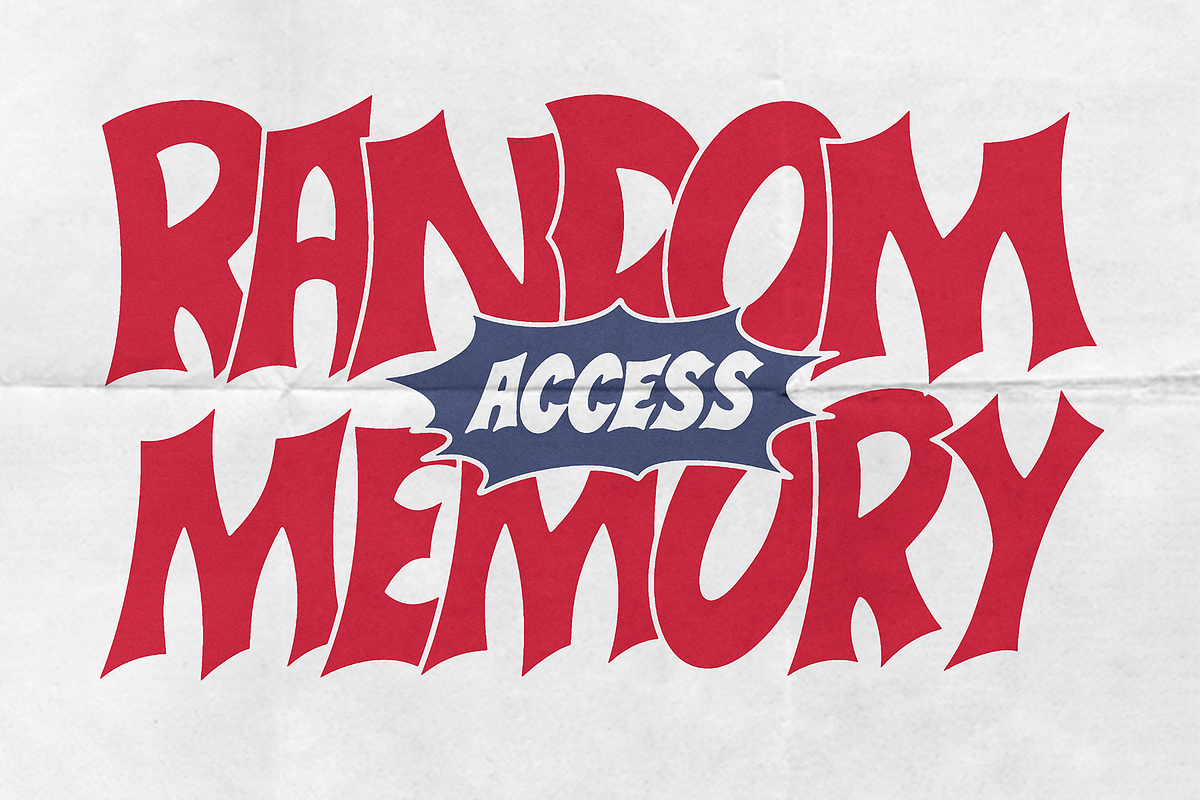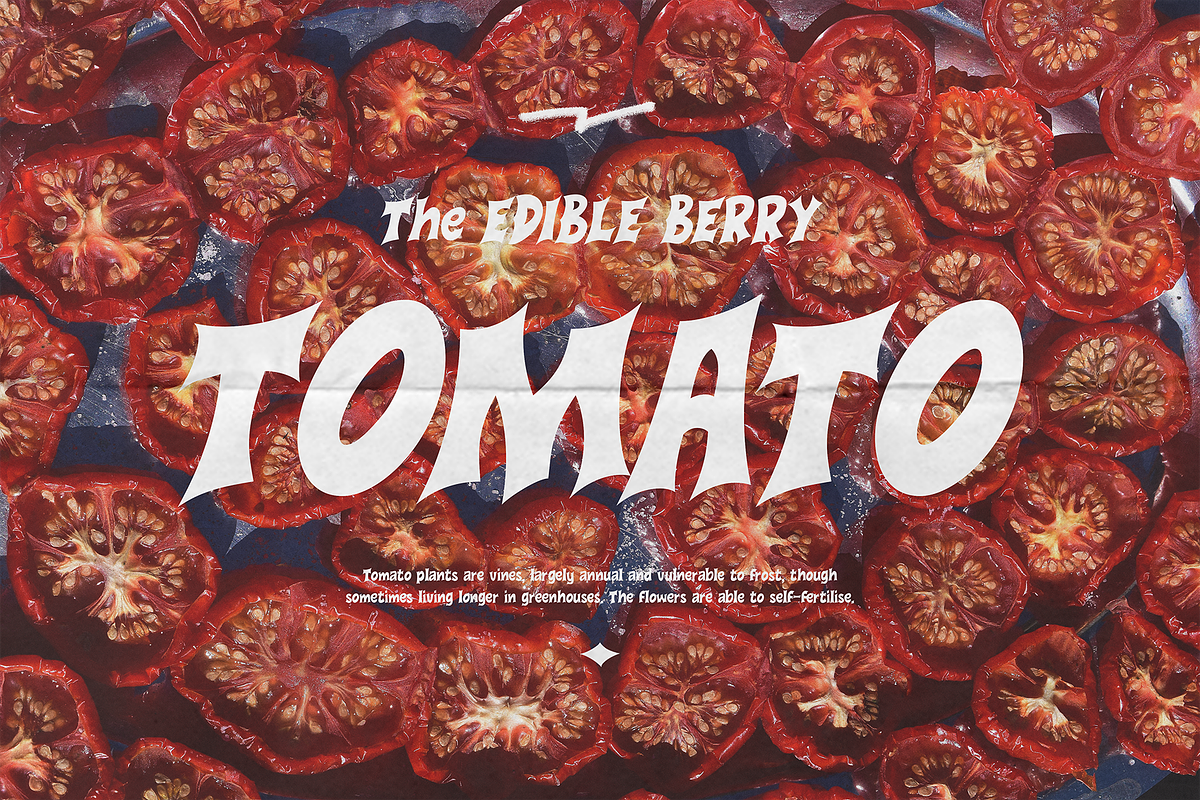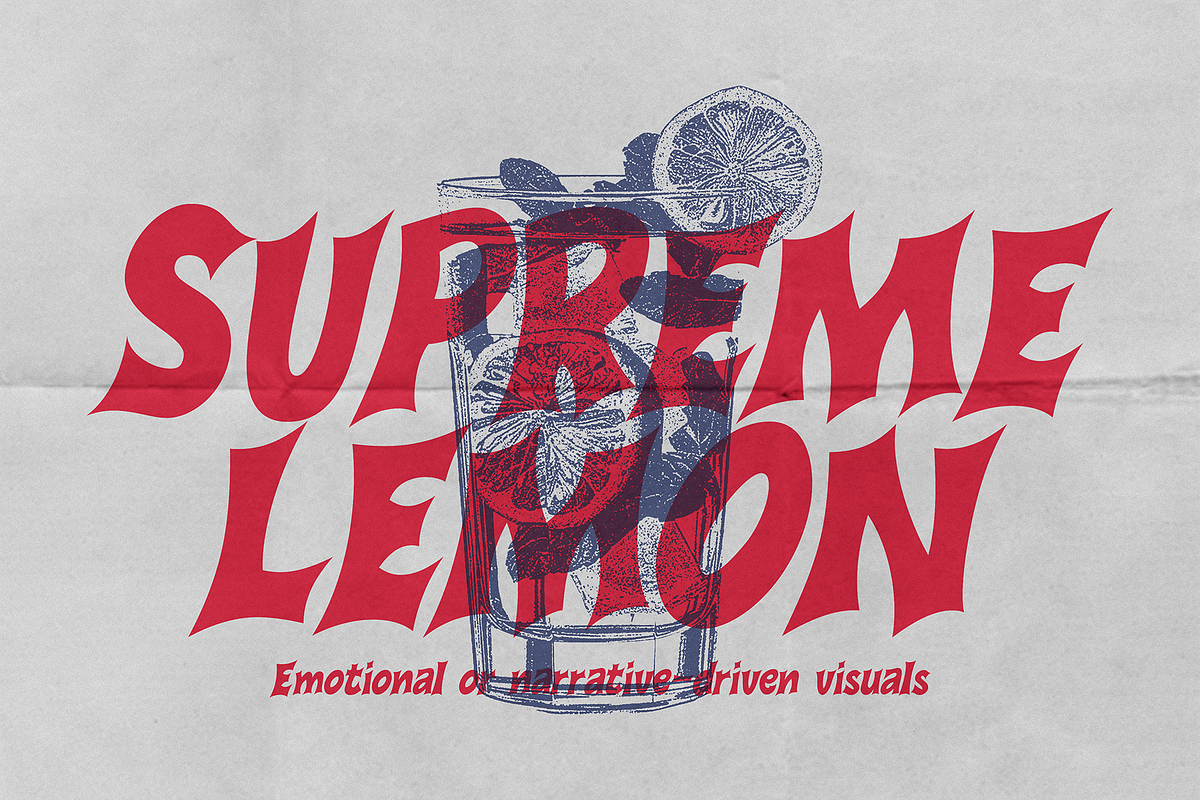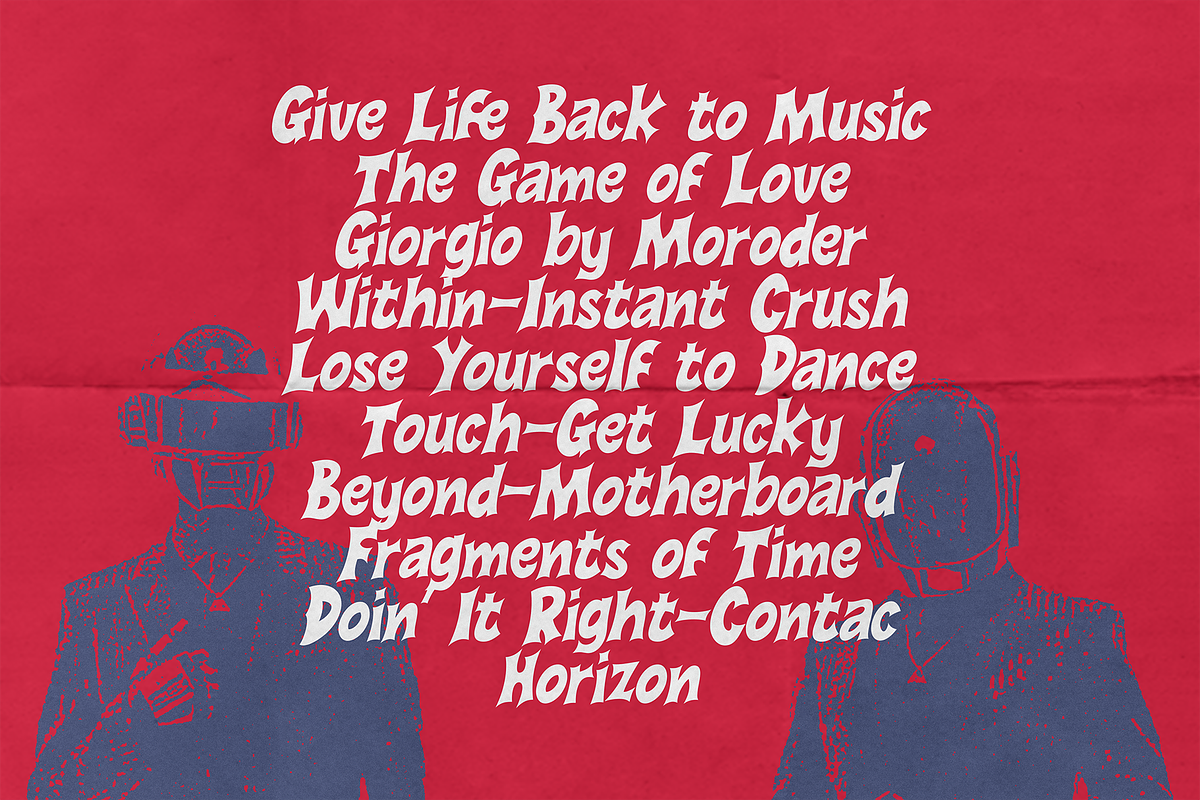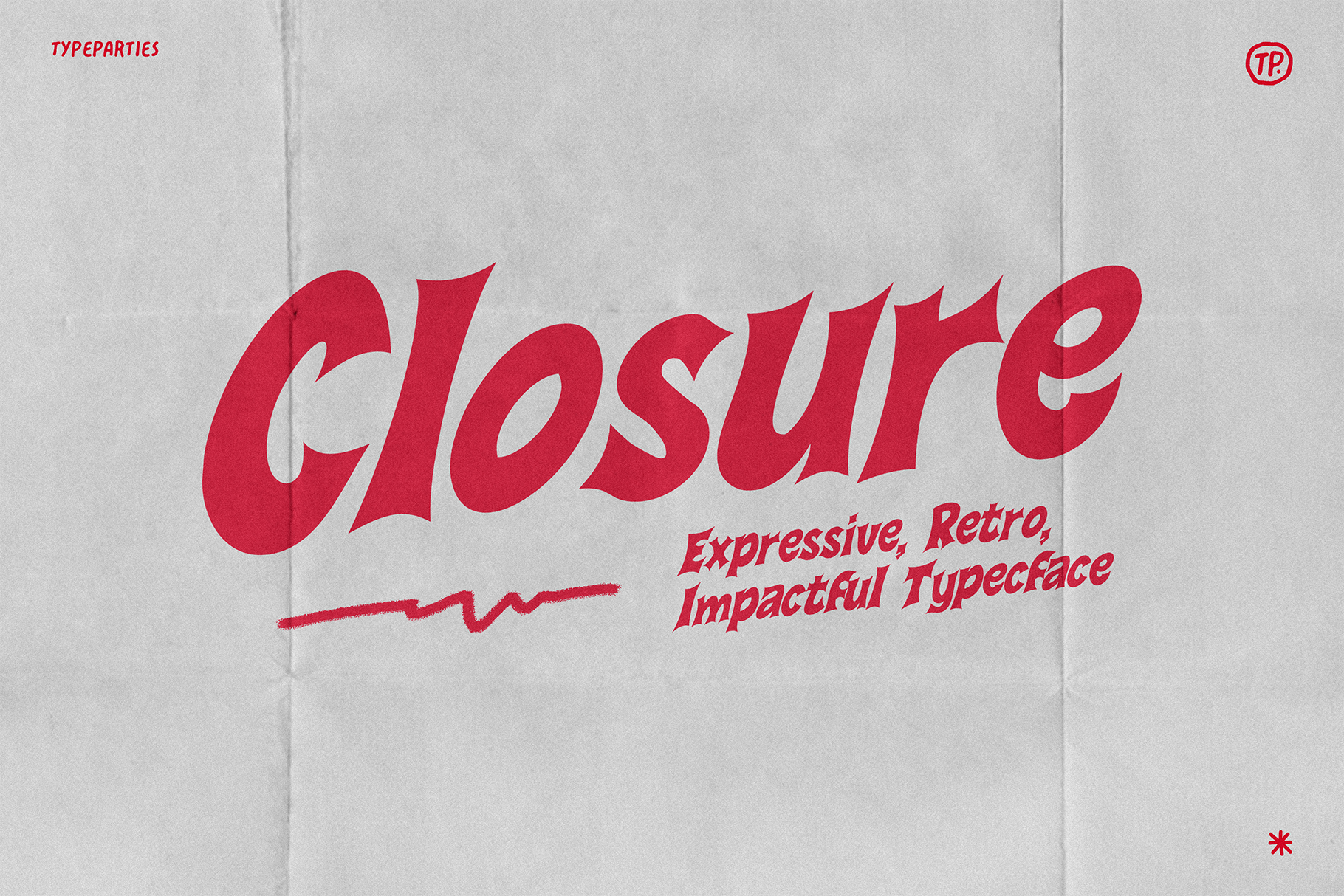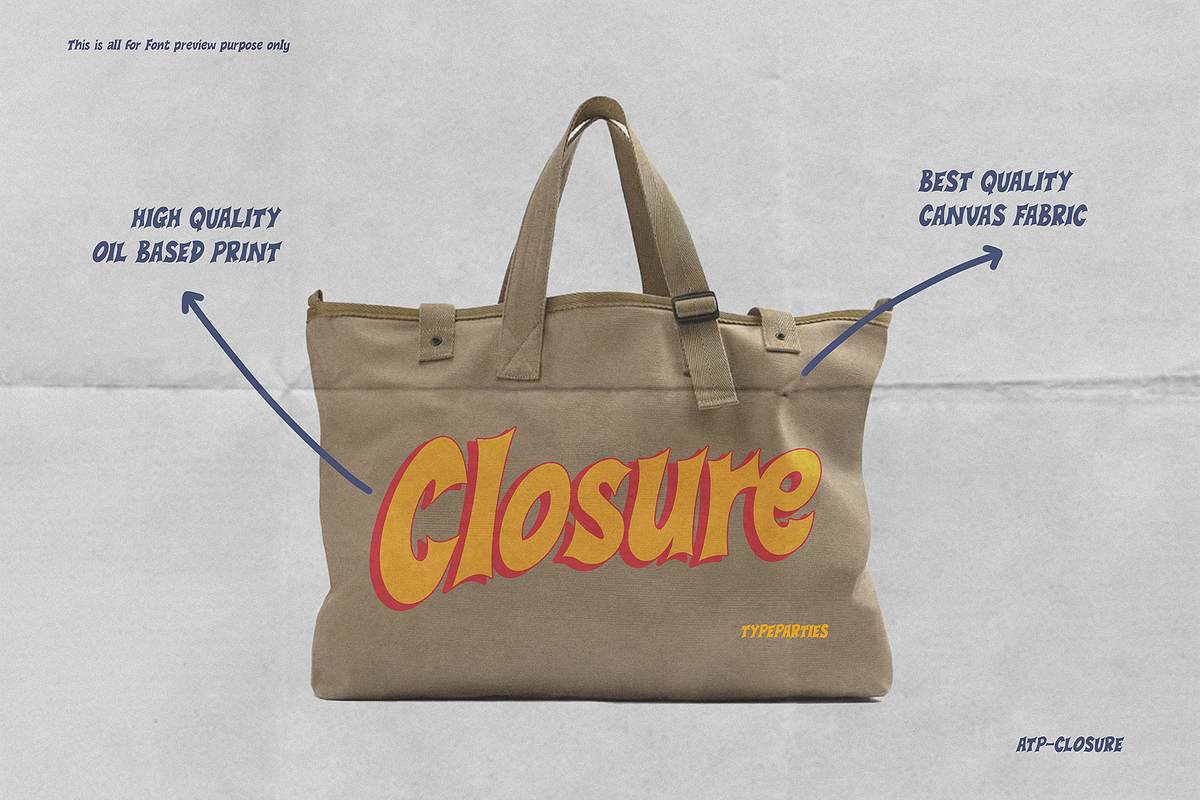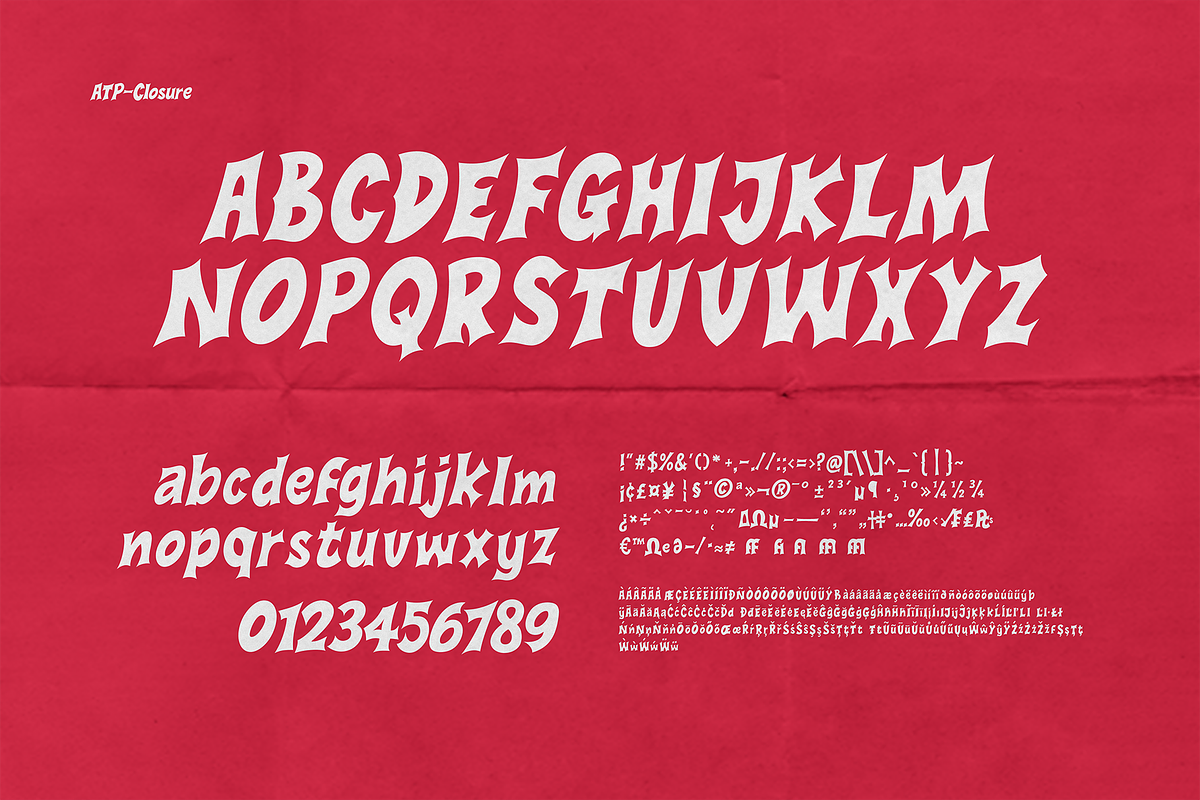
Closure Retro Display Font
Closure is a dynamic display font that fuses retro nostalgia with contemporary edge. Each letterform features high contrast strokes, sharp angular cuts, and bold curves that command attention. Inspired by vintage advertising and expressive typographic posters, the font evokes a sense of finality and emotional intensity—perfect for headlines, branding, or editorial designs that need to make a statement. Its sculptural rhythm and exaggerated forms make it ideal for projects where personality and visual drama are essential.